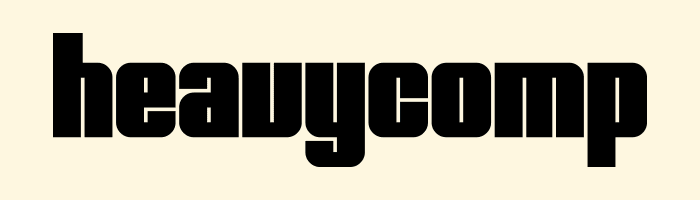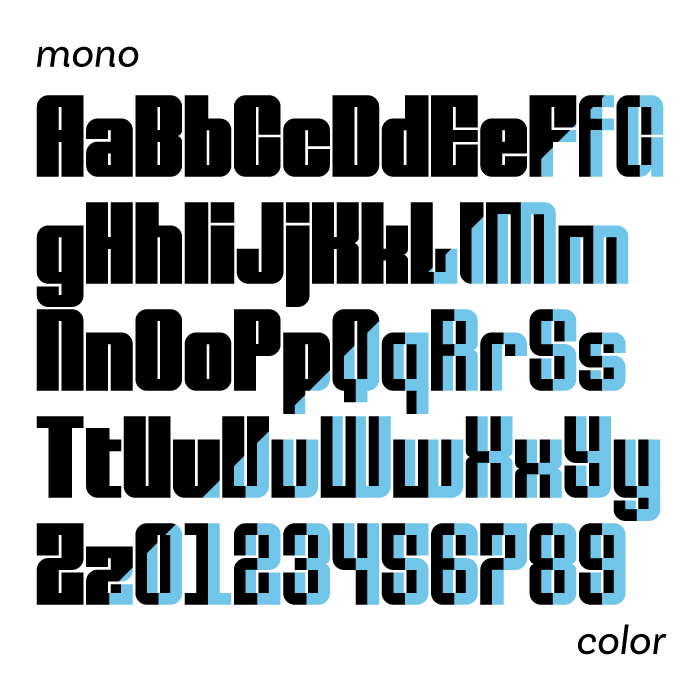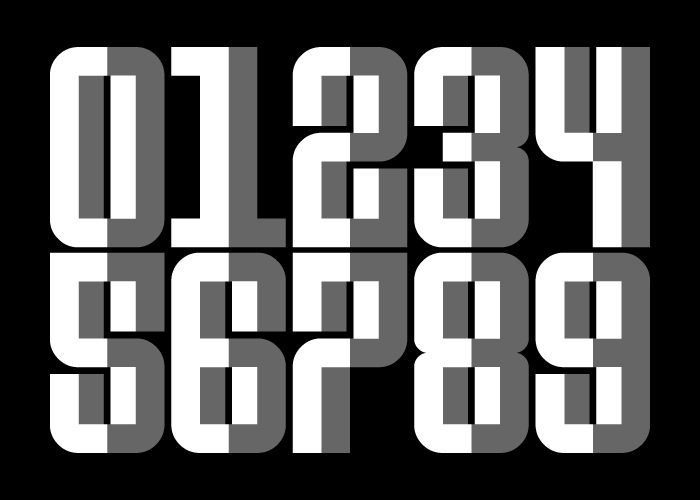
Great 3D font!
Beautiful 3d font, I have never seen anything like it. The animated sample is magic.
The font's been extended with More Latin set.
Meant to comment sooner, but the font, the sample, the use of colors, are all lovely